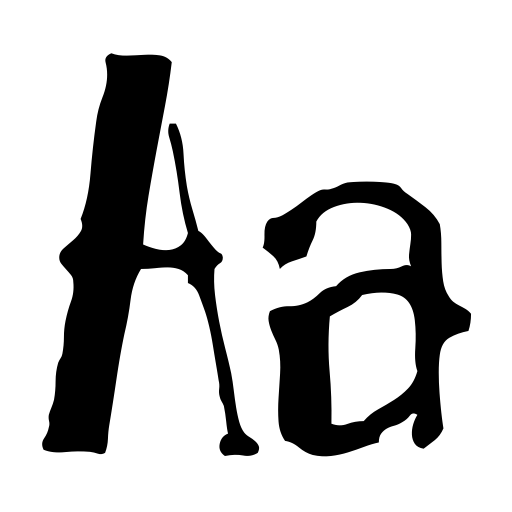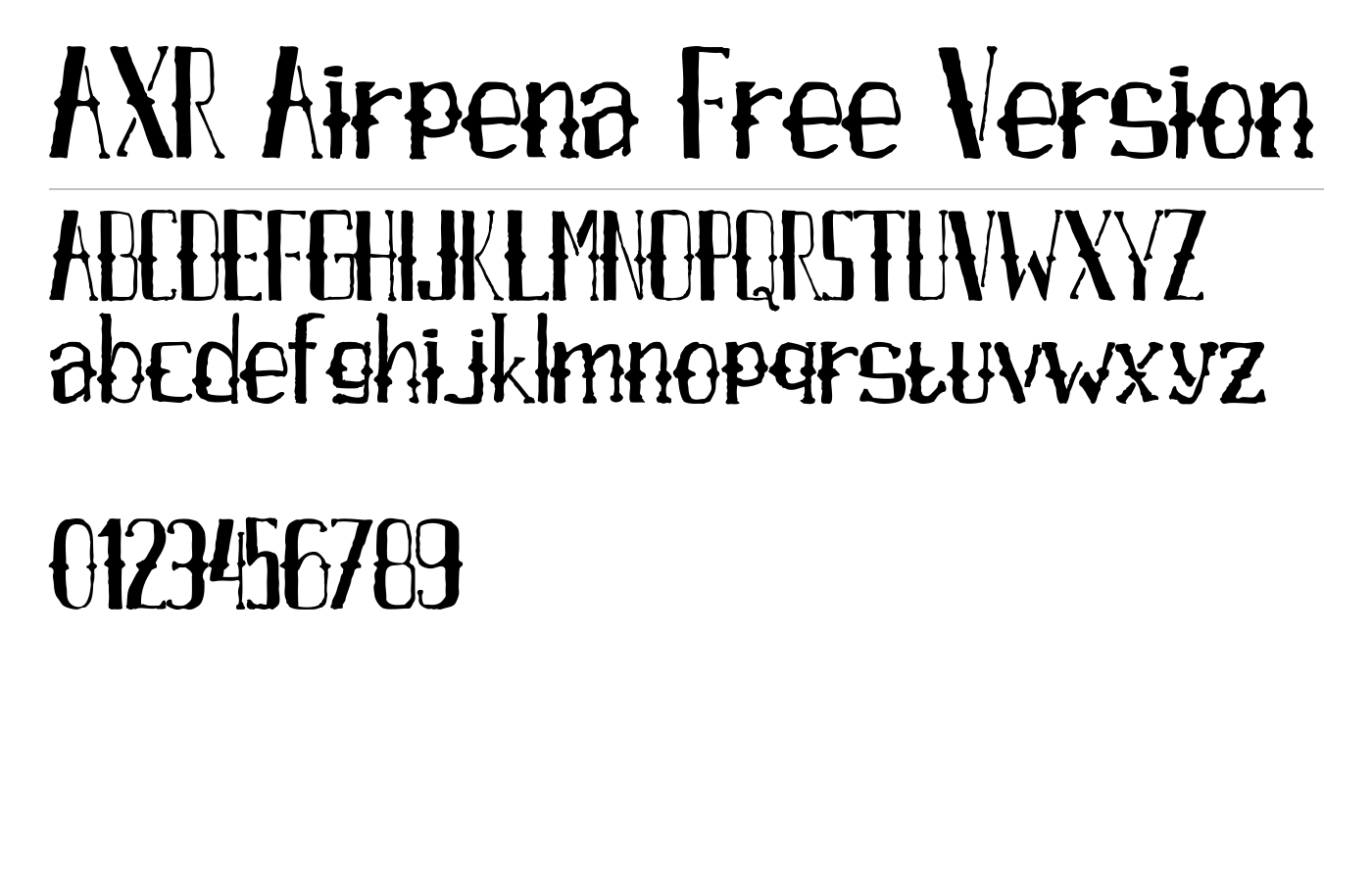
AXR Airpena Free Version is a narrow, distressed serif font with a vintage and handcrafted feel. Its irregular, textured strokes and tall, condensed letterforms add character and a slightly eerie or rustic vibe, making it ideal for creative projects, thematic posters, or branding that seeks a unique, handcrafted touch with an old-fashioned charm. This font works well in headlines or display uses where personality and distinctiveness are key.
AXR Airpena Free Version Font
About AXR Airpena Free Version Font
| Font family | AXR Airpena Free Version Font |
| Designer | AXR Lettering Studio |